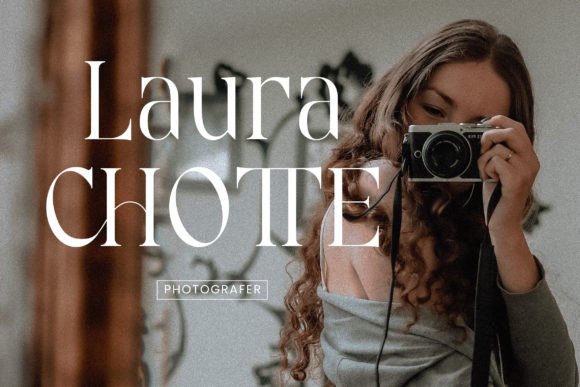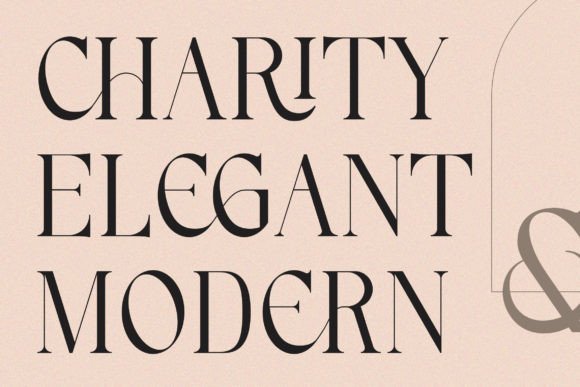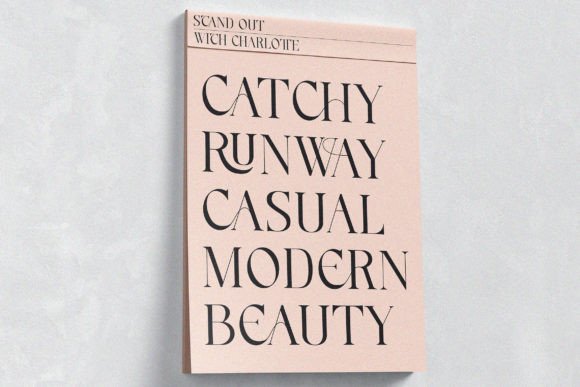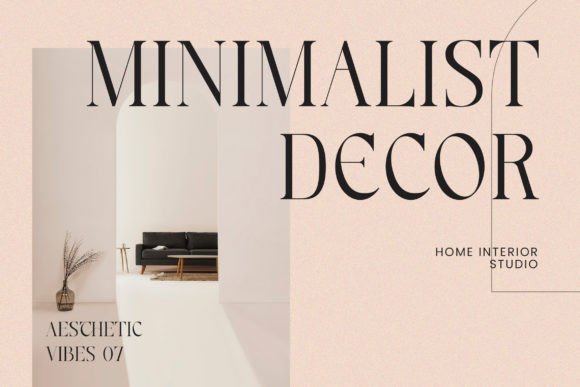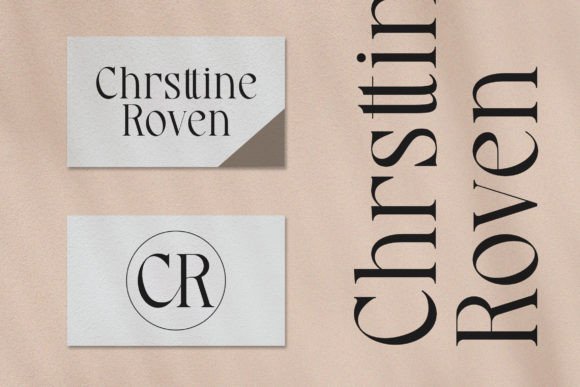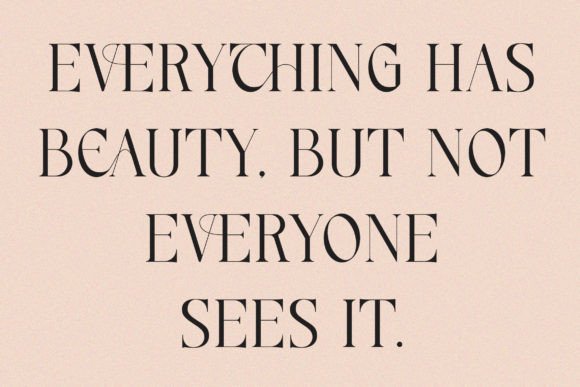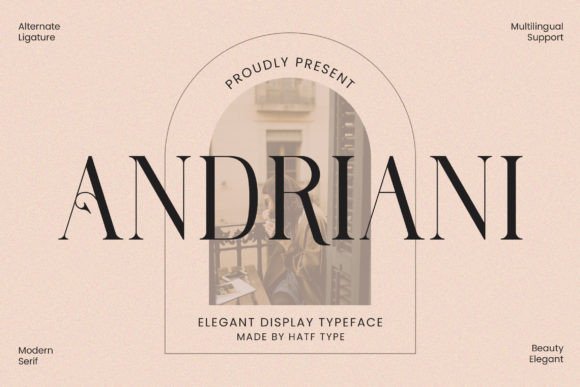
Introducing Andriani: The Epitome of Elegance in Display Typefaces
Have you ever been in the midst of working on a project, meticulously crafting every detail, only to find yourself stuck on one crucial element: the perfect font? I recall a particularly daunting experience when a client requested a font that exuded luxury and sophistication for their high-end branding campaign. After an exhaustive search, I stumbled upon Andriani – a paragon of elegance and refinement in the realm of display typefaces.
A Personal Encounter with Andriani
As I delved deeper into Andriani’s intricacies, I was captivated by its ability to seamlessly blend suave strokes with refined, ornate elements. This enchanting typeface masterfully walks the line between sleekness and luxury, making it an ideal choice for crafting captivating headlines, striking headings, and other elements that demand attention.
An Honest Review of Andriani
- ✨ Elegant and sophisticated design, perfect for high-end branding and opulent invitations
- ✅ Subtle serifs and delicate details that enhance the composition of the typeface
- ✨ Timeless allure of gracefully formed letters, each with an intrinsic hint of sophistication
- ✅ Seamless flow across the page, thanks to meticulous attention to detail
While Andriani is an exceptional typeface, there are a few minor considerations to keep in mind:
- ⚠️ May not be suitable for body text due to its display-focused design
- 🤔 Limited availability of certain OpenType features in older software
The Designer Inspiration Behind Andriani
Andriani’s design story begins with a passion for timeless elegance and sophistication. Its creator, a renowned typeface designer, sought to craft a typeface that would evoke the luxury and refinement of high-end branding and opulent invitations. Through meticulous attention to detail and a deep understanding of typographic principles, Andriani was born – a true masterpiece of modern typeface design.
Q: What makes Andriani suitable for high-end branding?
A: Andriani’s elegant design, subtle serifs, and refined details make it an ideal choice for high-end branding, exuding luxury and sophistication.
Q: Can I use Andriani for body text?
A: While Andriani is an exceptional display typeface, it may not be suitable for body text due to its design focus on elegance and sophistication rather than readability.
Q: Does Andriani support OpenType features?
A: Yes, Andriani supports OpenType features, including glyphs and stylistic alternates, allowing for greater flexibility and creativity in your designs.
Q: Is Andriani suitable for use in digital applications?
A: Yes, Andriani is designed to be versatile and can be used in various digital applications, including websites, social media graphics, and presentations.